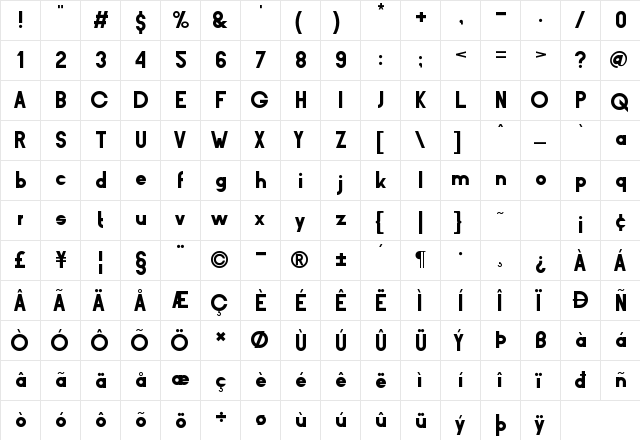
BarQ Bold Regular
Design Context for BarQ Bold Typeface
BarQ Bold takes a measured approach to typography — its balanced proportions and neutral character make it a reliable workhorse for both digital and print work. The heavy weight commands attention and anchors typographic hierarchies.